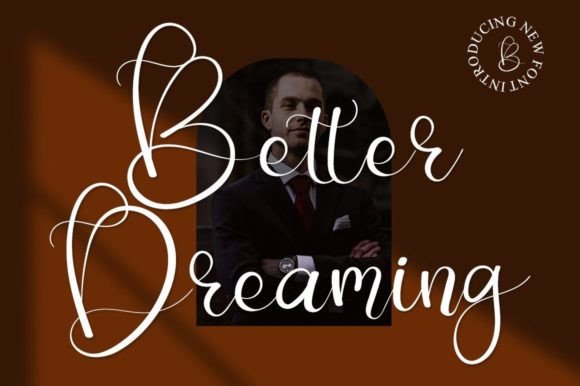
Let your creativity bloom with the Better Dreaming font, an enchanting script font that will transform your designs into a whimsical wonderland. This font family, meticulously crafted by the talented Eddygoodboy, is a symphony of elegance and charm, perfect for projects seeking a touch of whimsy and sophistication.
Step into a world of fairy tales and dreams with Better Dreaming. Its graceful curves and delicate swashes evoke a sense of magic and wonder. Whether you're designing wedding invitations, social media posts, or branding materials, this font will add a touch of enchantment to your creations.
Better Dreaming's versatility knows no bounds. Its charm shines in both formal and informal settings, making it the perfect choice for a wide range of projects. Its clean lines and elegant strokes bring a sense of sophistication to business cards, brochures, and website designs. At the same time, its playful nature adds a touch of whimsy to personal projects like greeting cards, posters, and party invitations.
With Better Dreaming, you have the power to transform ordinary designs into captivating masterpieces. Its fresh and clean aesthetics bring a breath of fresh air to any project. Its ability to elevate your designs makes it a font that will leave a lasting impression on your audience.